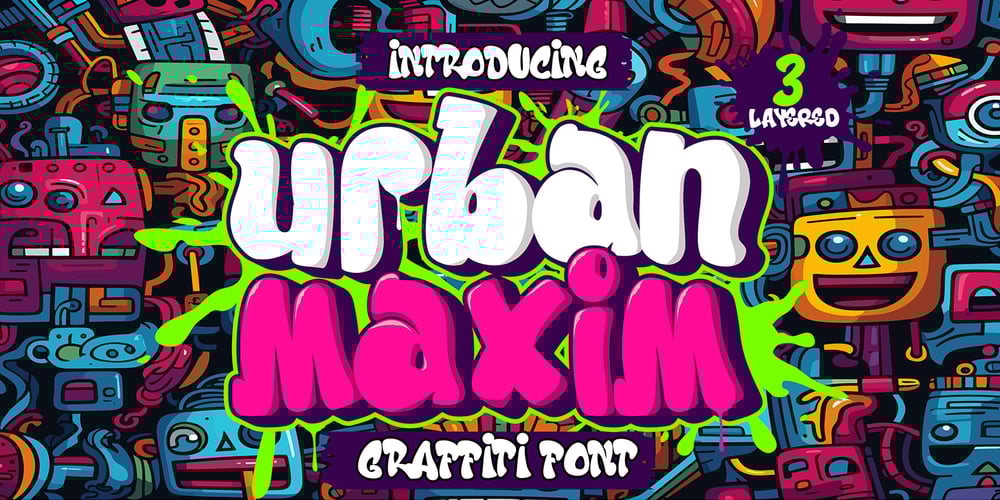
Urban Maxim 3d Graffiti Font Family was designed by Sipanji and published by Sipanji21. Urban Maxim 3d Graffiti contains 3 styles and family package options. Urban Maxim” is a graffiti font that features three different layers: solid, shadow, and inner shadow. By using this combination of layers in your design, you can create a three-dimensional (3D) effect on your text. Fonts like this are often used in street art, posters, or other designs that aim to add depth and dimension to their typography.With “Urban Maxim,” you have the flexibility to create text that looks distinct and more pronounced by using the various layers. This allows you to customize the appearance of your text to fit your design aesthetics.